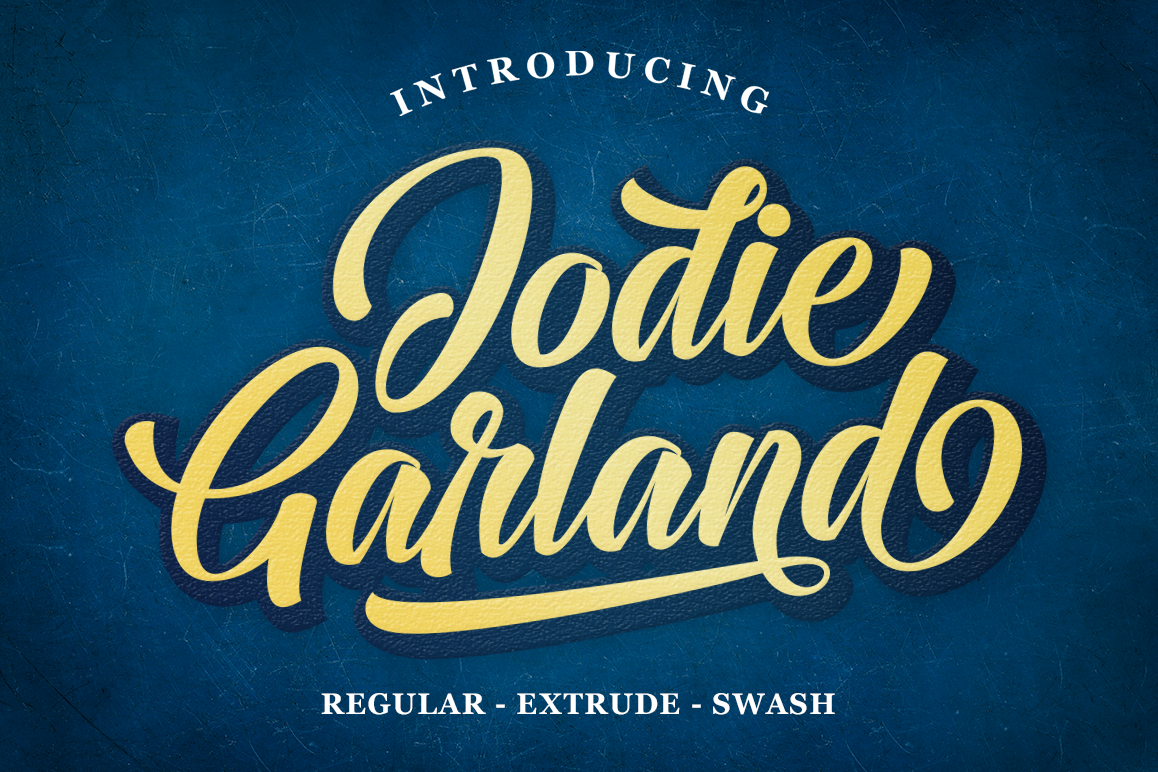
Jodie Garland Script
Jodie Garland Script Inspired by Retro style and combination with Handwriting style. Jodie Garland Script has many alternative swash and features like stylistic alternatice, stylistic set, ligature and swash so you can mix and match as you wish. Jodie Garland Script comes with open type features such as alternative styles, style sets & great features for logos, posters, badges, book covers, t-shirt designs, handwritten quotes, product packaging, headers, posters, merchandise, social media & greeting cards.Files include: Jodie Garland Regular-otf & ttf Jodie Garland Extrude-otf & ttf Jodie Garland Swash-otf & ttfTo activate the OpenType Stylistic alternative, you need a program that supports OpenType features such as Adobe Illustrator CS, Adobe Indesign & CorelDraw X6-X7, Microsoft Word 2010 or newer versions. Jodie Garland Scriptt are coded with PUA Unicode, which allows full access to all additional characters without having special design software. Mac users can use Font Book, and Windows to attach to your favorite text editor / application.If you need help or have questions, let me know or via email. I am happy to help :) Thank you & Congratulations on the Design!